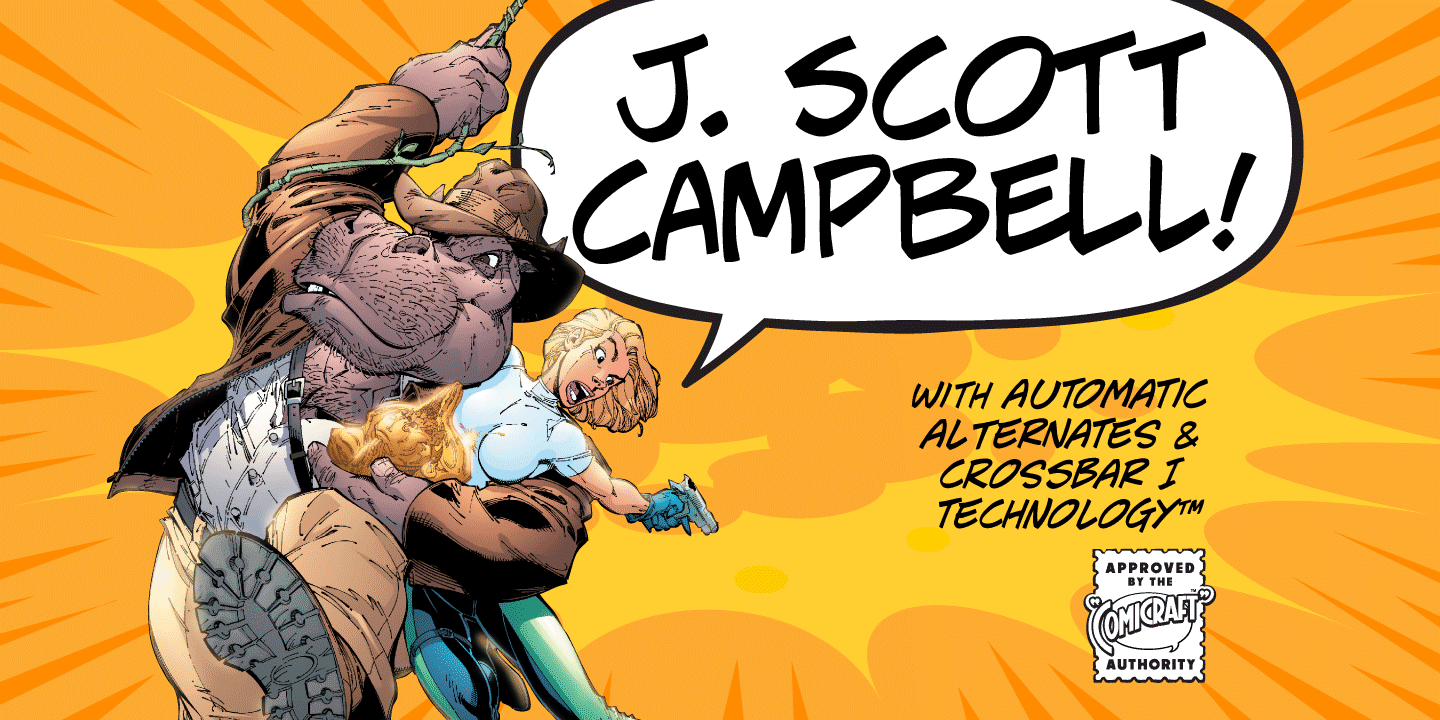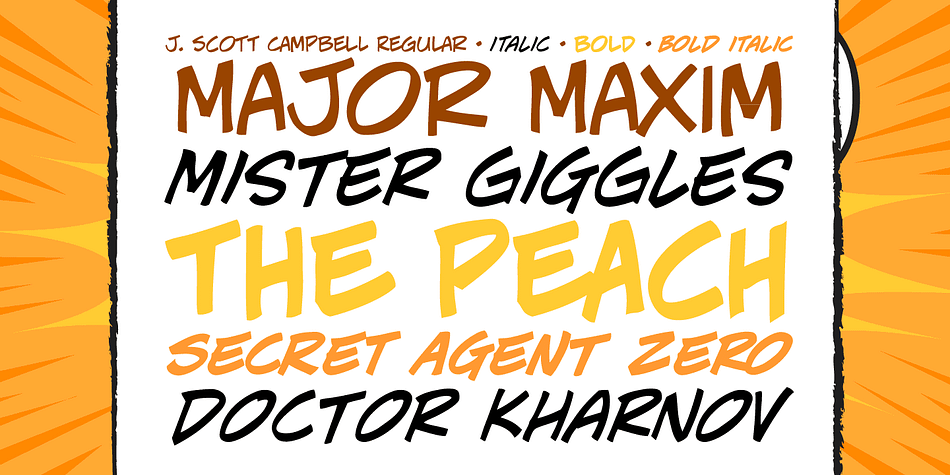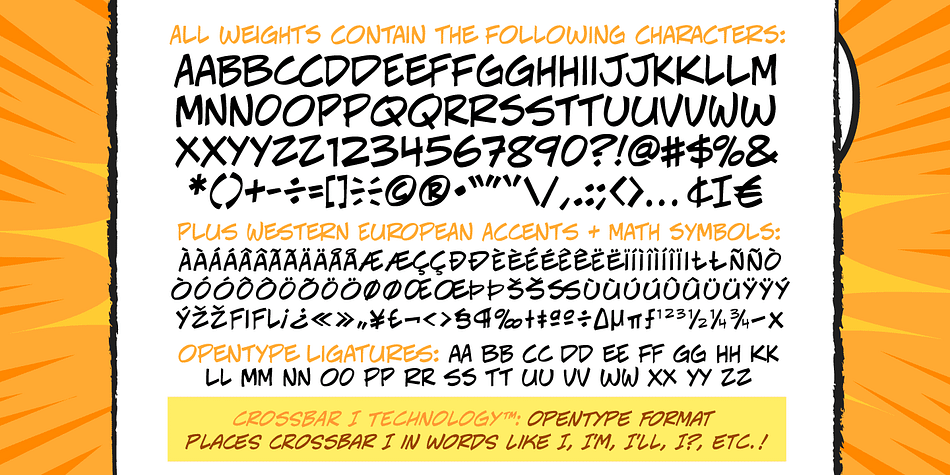
Designed by John Roshell, J. Scott Campbell is a comic font family. This typeface has three styles and was published by Comicraft.
Top-selling DANGER GIRL creator and artist, J. Scott Campbell, also topped our first MASTERS OF COMIC BOOK ART poll. Originally J. Scott wanted his font to be wholly exclusive to the DANGER GIRL book, but we begged him, we pleaded with him and, eventually, we took photographs of him and he relented. Now, at long last we are making this slick and stylish font available as a part of our catalog, and you no longer need be a stranger to danger.